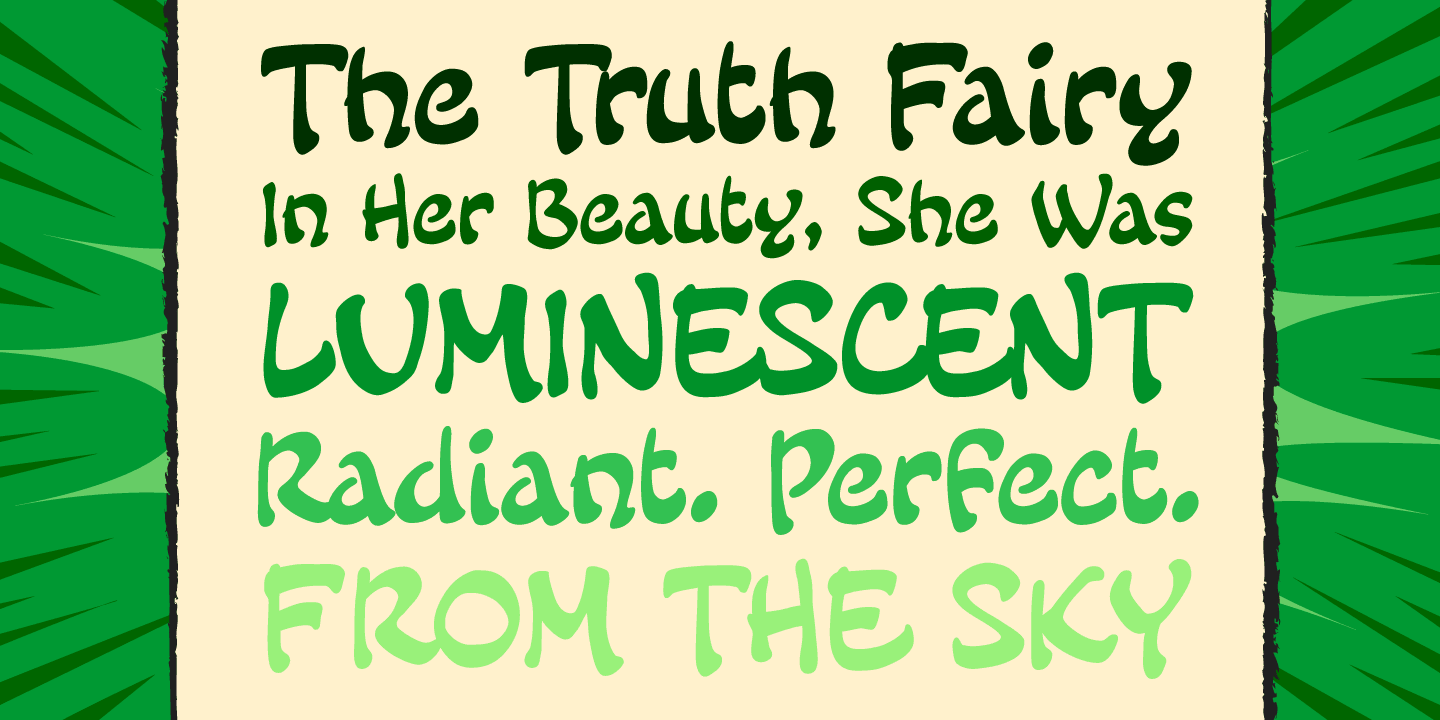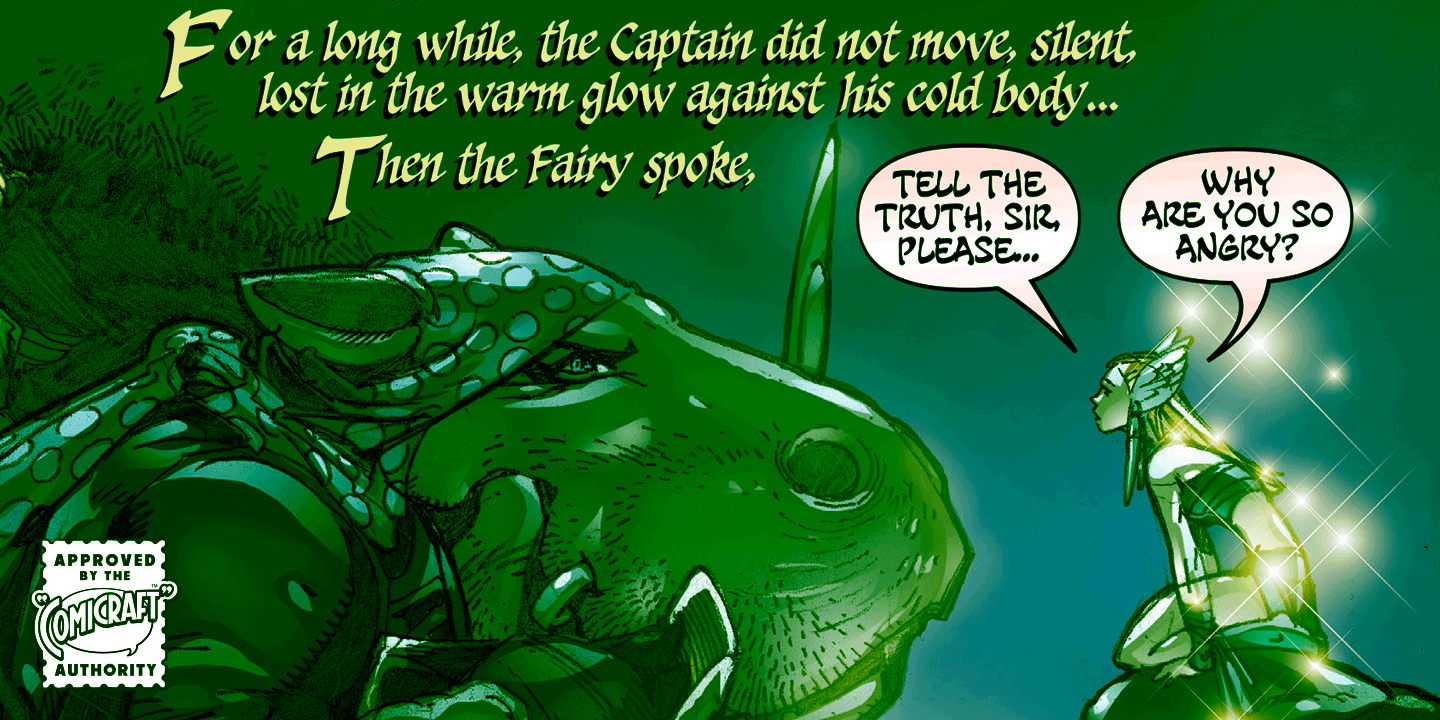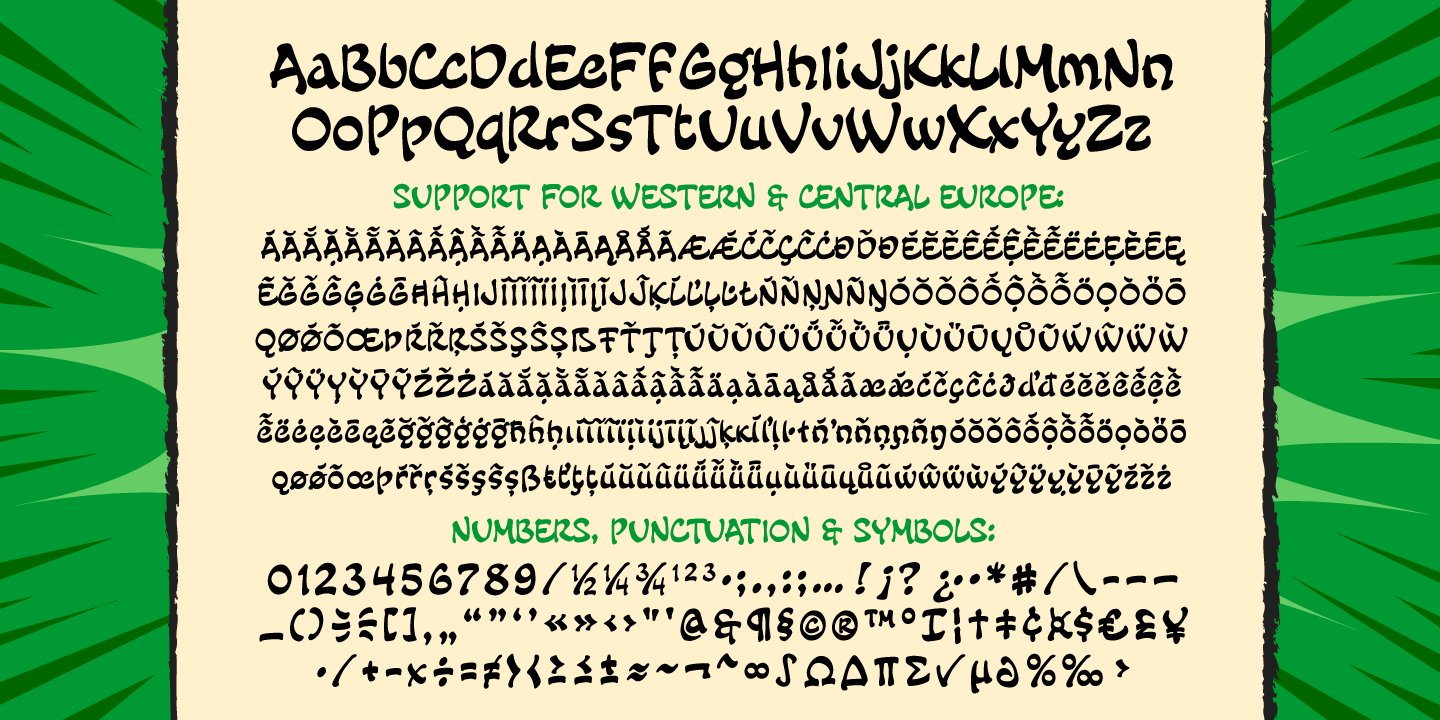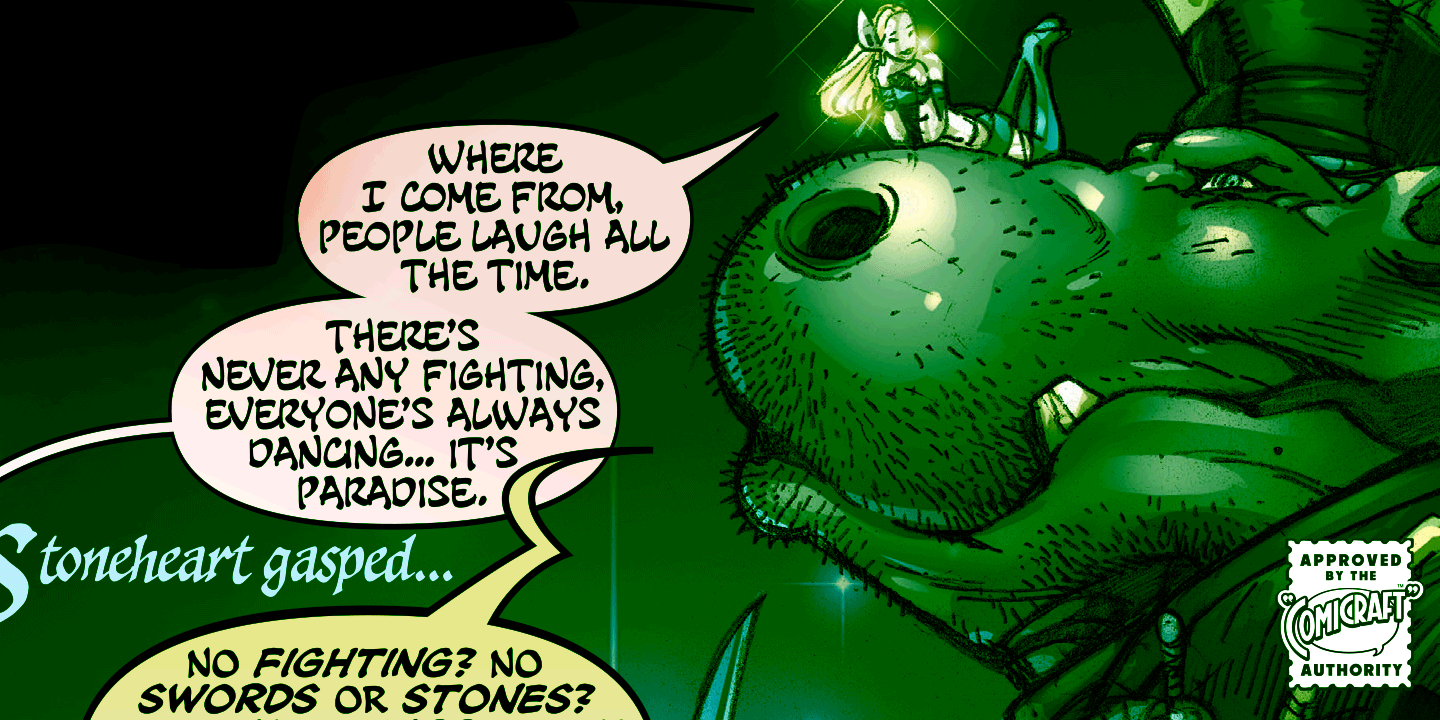
Fairy Tale CC
Fairy Tale CC is a whimsical display font with a bold, cartoonish voice and an easygoing hand-drawn feel. Rounded forms, smooth curves, and an informal rhythm give it a friendly, playful look that feels right at home in imaginative, character-filled design.
With its decorative style and casual personality, this single-style family is well suited to posters, kids-focused branding, storybook-inspired graphics, party pieces, packaging, and other fun display work where you want lettering to feel warm and animated rather than formal.
Created by Comicraft Fonts, Fairy Tale CC includes one style: FairyTale Regular. It’s a charming choice for projects that call for expressive type with a lighthearted, wacky edge.